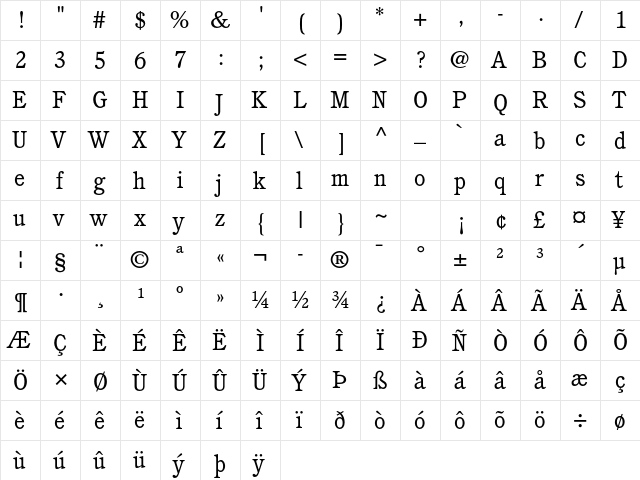
ITC Cushing Std Book
| Designer | Vincent Pacella |
Design Context for ITC Cushing Std Typeface
ITC Cushing Std takes a measured approach to typography — its balanced proportions and neutral character make it a reliable workhorse for both digital and print work.